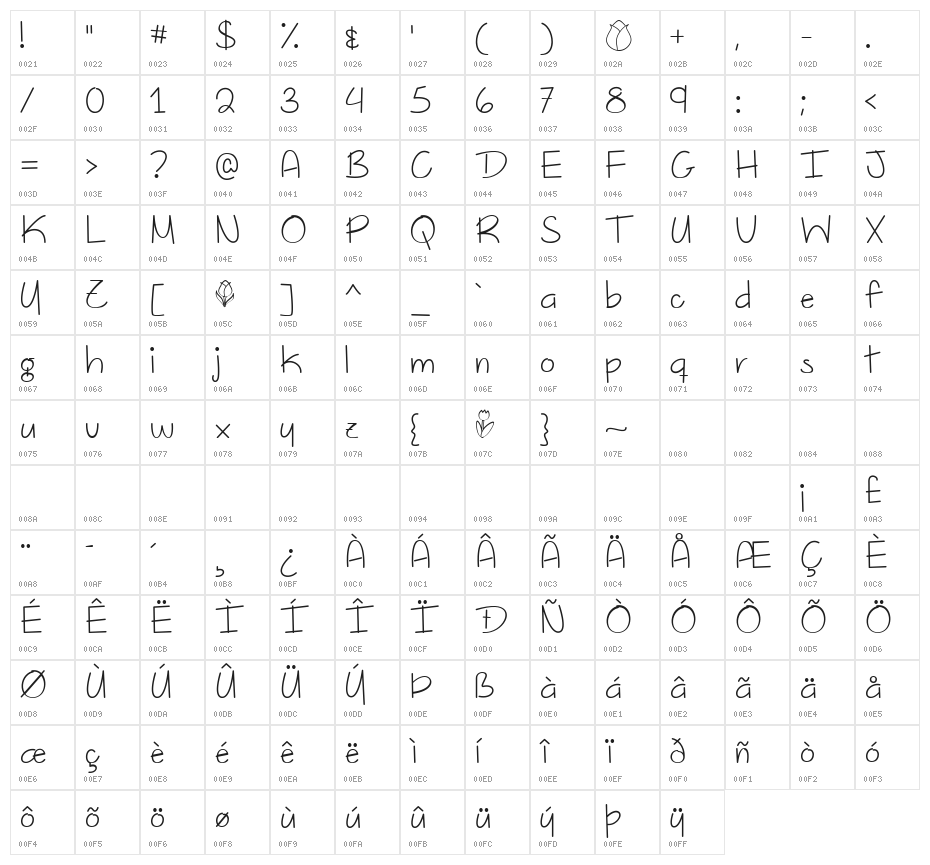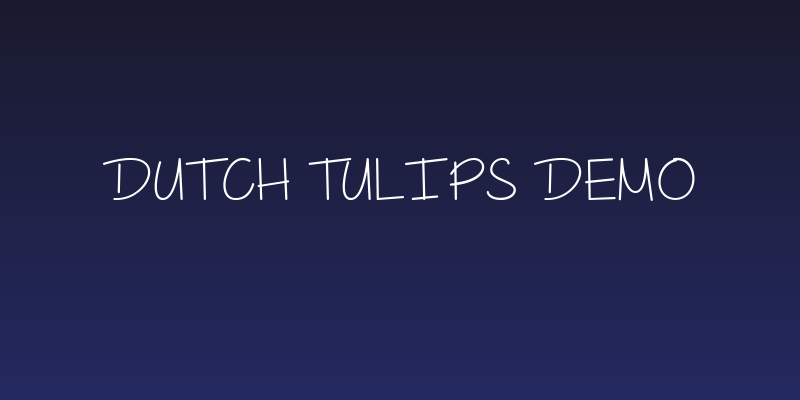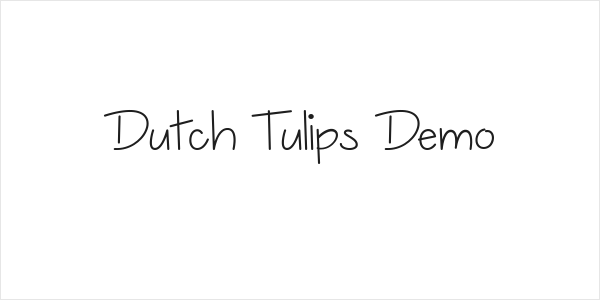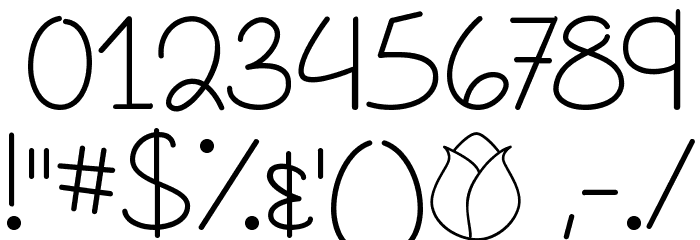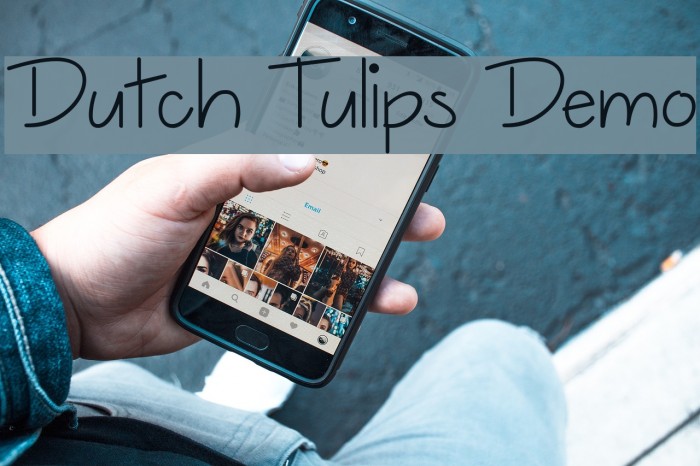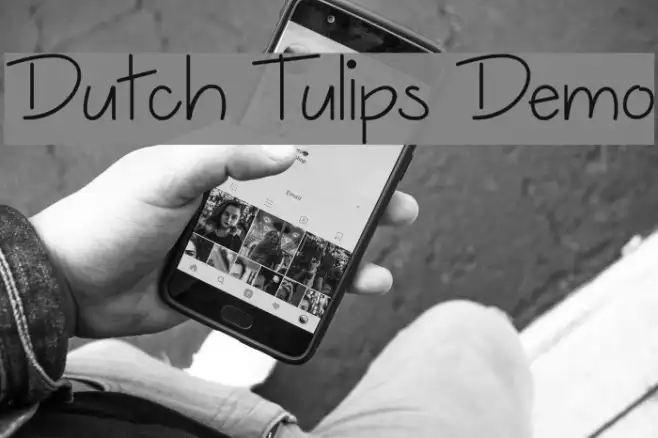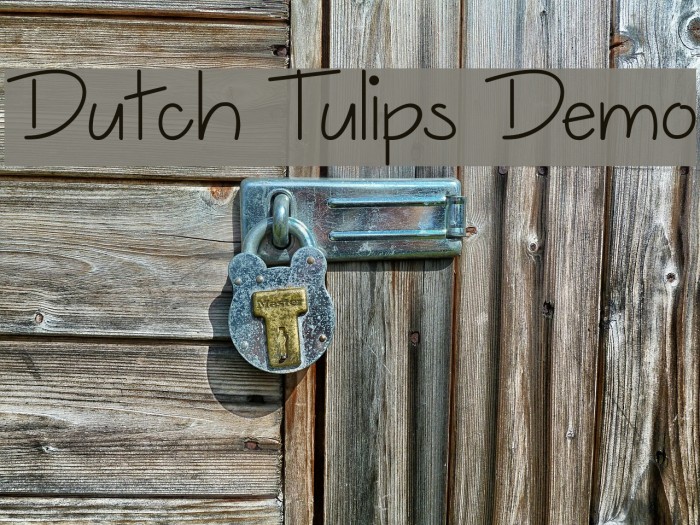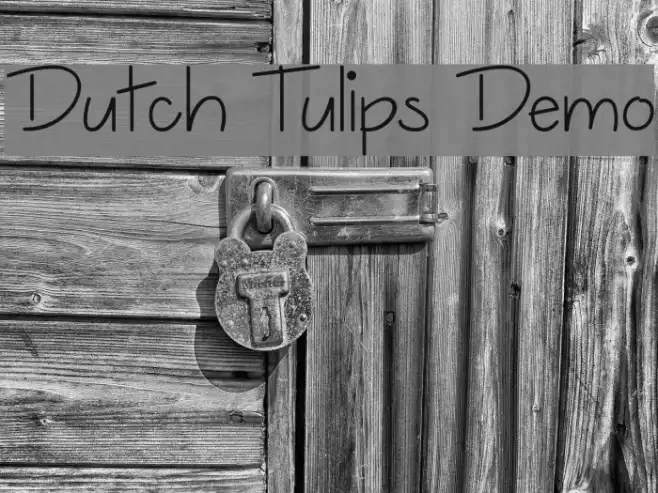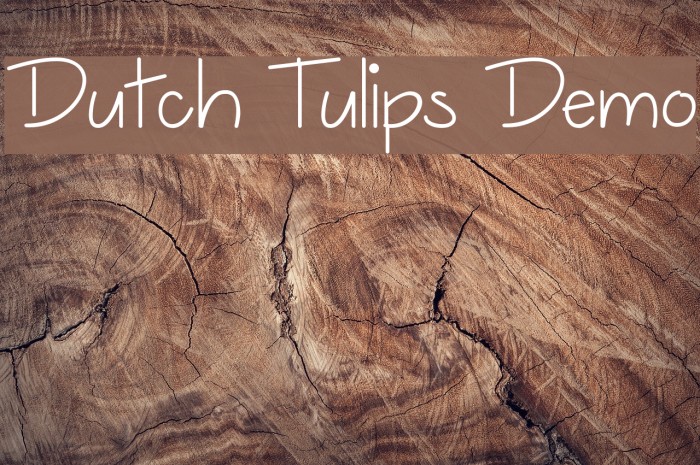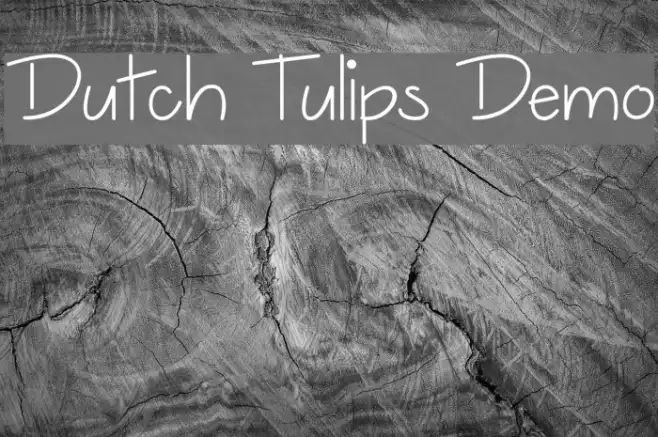
Dutch Tulips Demo Font
Dutch Tulips Demo Description
This playful and whimsical font features a handwritten style with a casual and friendly appearance. The letters are characterized by their rounded edges and slightly irregular shapes, giving them a natural, organic feel. The uppercase letters are tall and narrow, while the lowercase letters maintain a consistent height with a slight slant, adding to the informal look. The numerals are clear and easy to read, matching the overall style of the alphabet. Special characters, including punctuation and symbols, are designed to complement the font's playful nature. This font is perfect for projects that require a personal touch or a fun, approachable aesthetic.